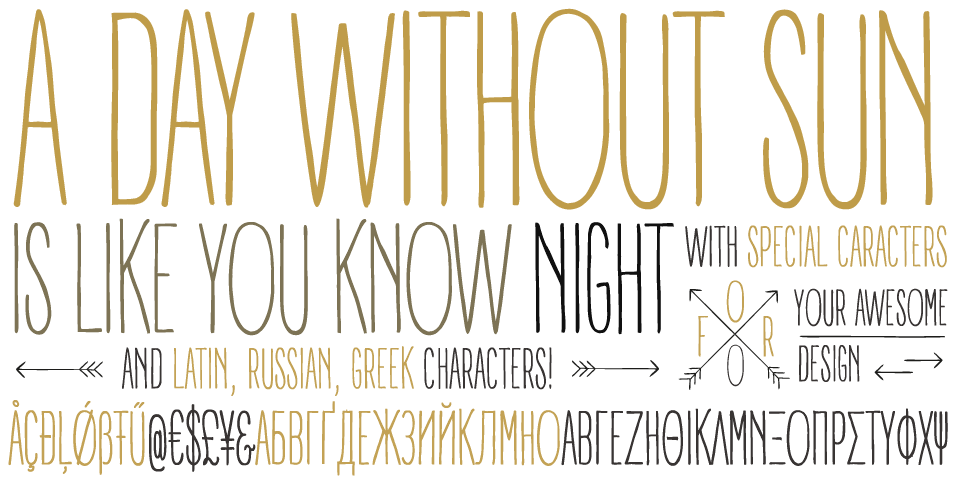
A day without sun
A Day Without Sun is an ultra-condensed version of Panforte, created by Cosimo Lorenzo Pancini based on the design of Debora Manetti for Panforte. Hand drawn in easy big strokes, its an extremely condensed typeface that allows you to typeset text in faux-handamade fashion, with the subtle elegance of vintage handlettered menus. Lovers of world cuisine will be delighted to discover that it supports over forty languages using the latin alphabet, spiced with hand-picked diacritics and comes also with a tasty side dish of greek and cyrillic characters.Its grungy, handmade characteristics are visible at medium and high point sizes but do not impact  Show all
Features
• fl fi
Standard Ligatures
• Abago
Small Capitals
• 12360
Oldstyle Figures